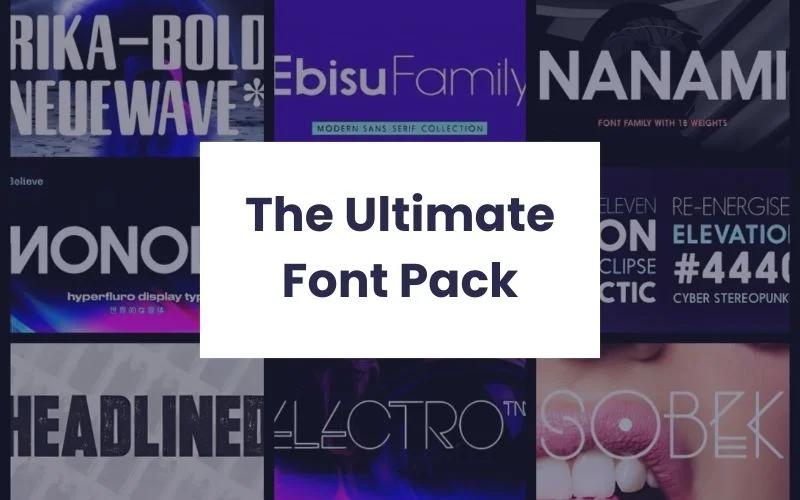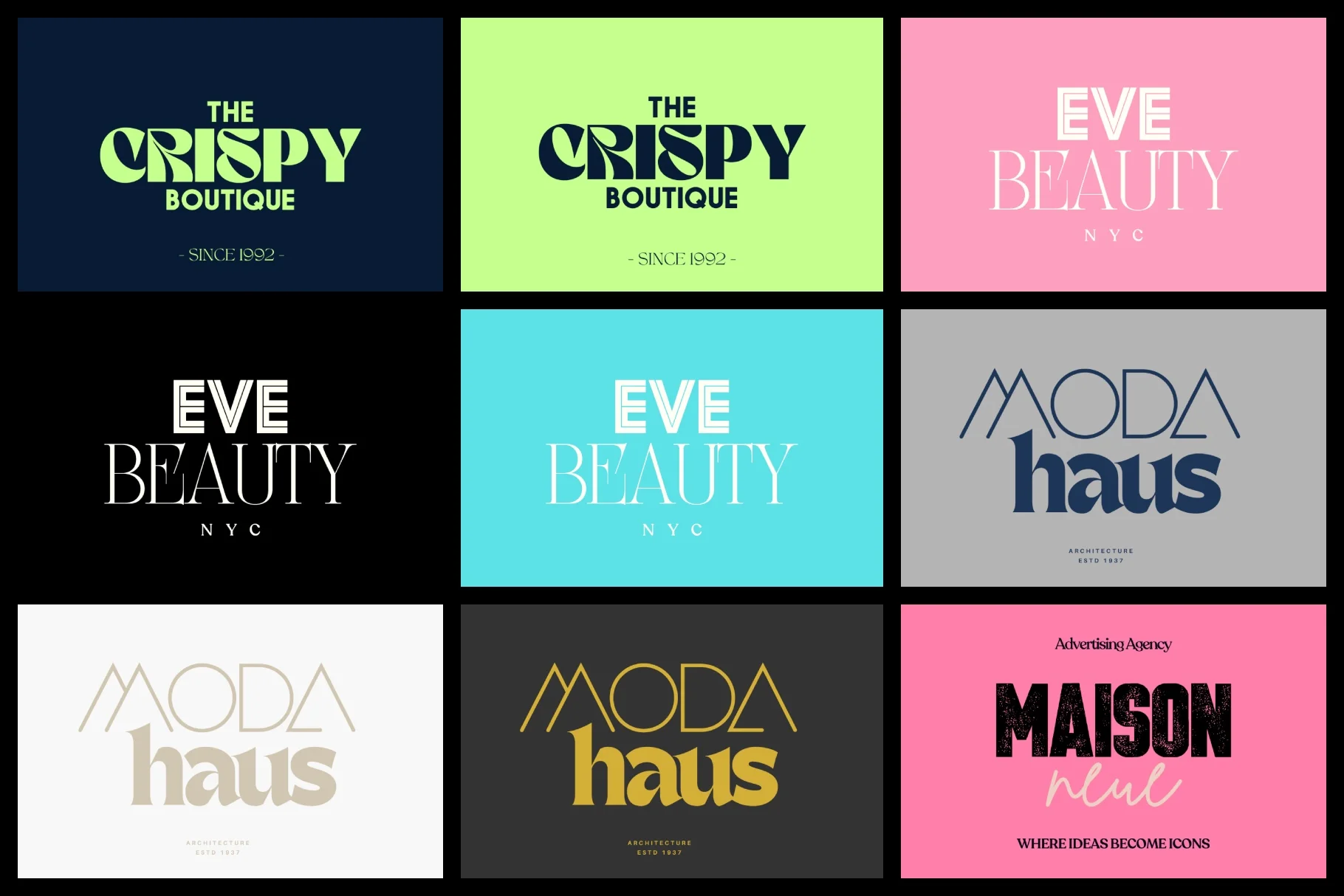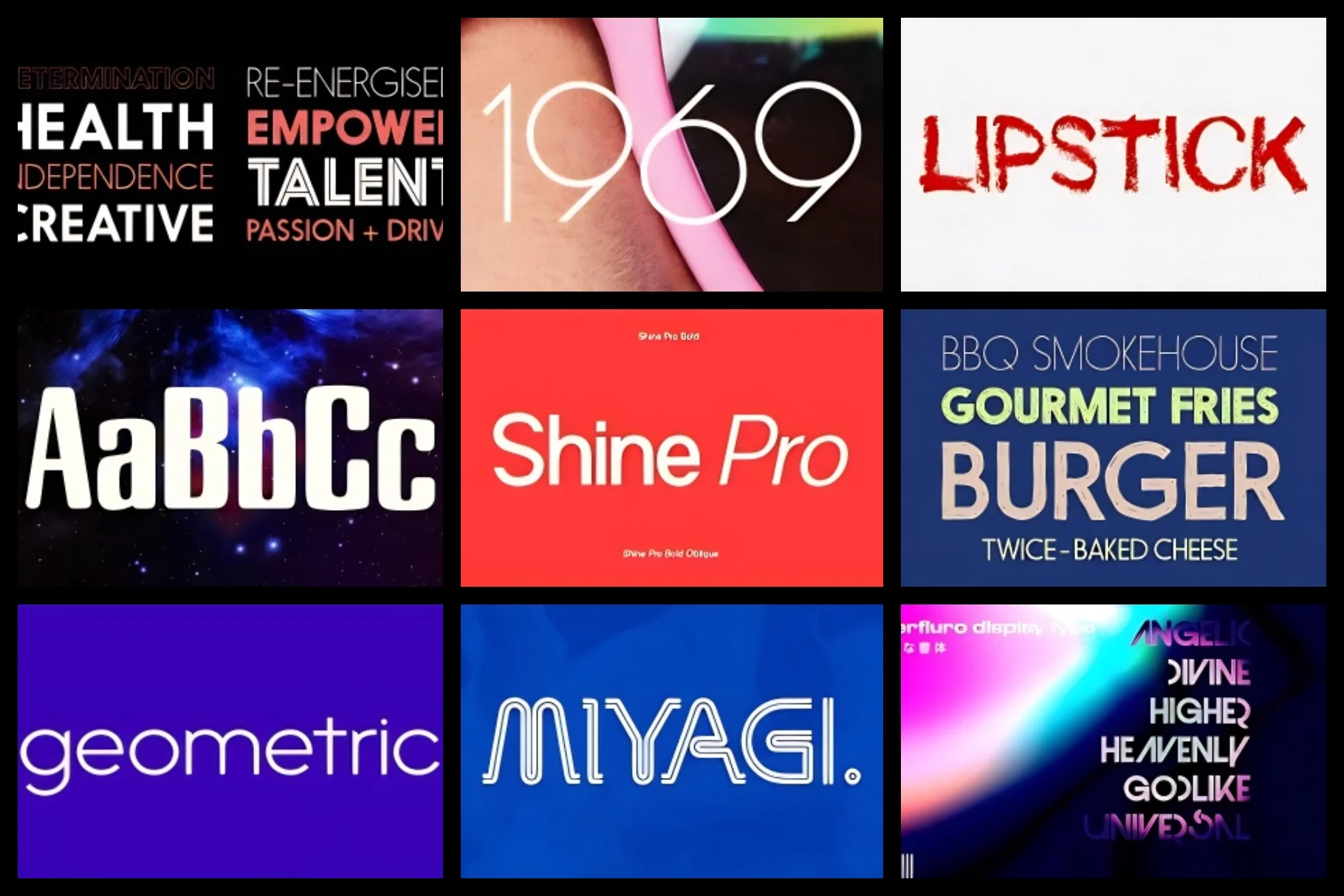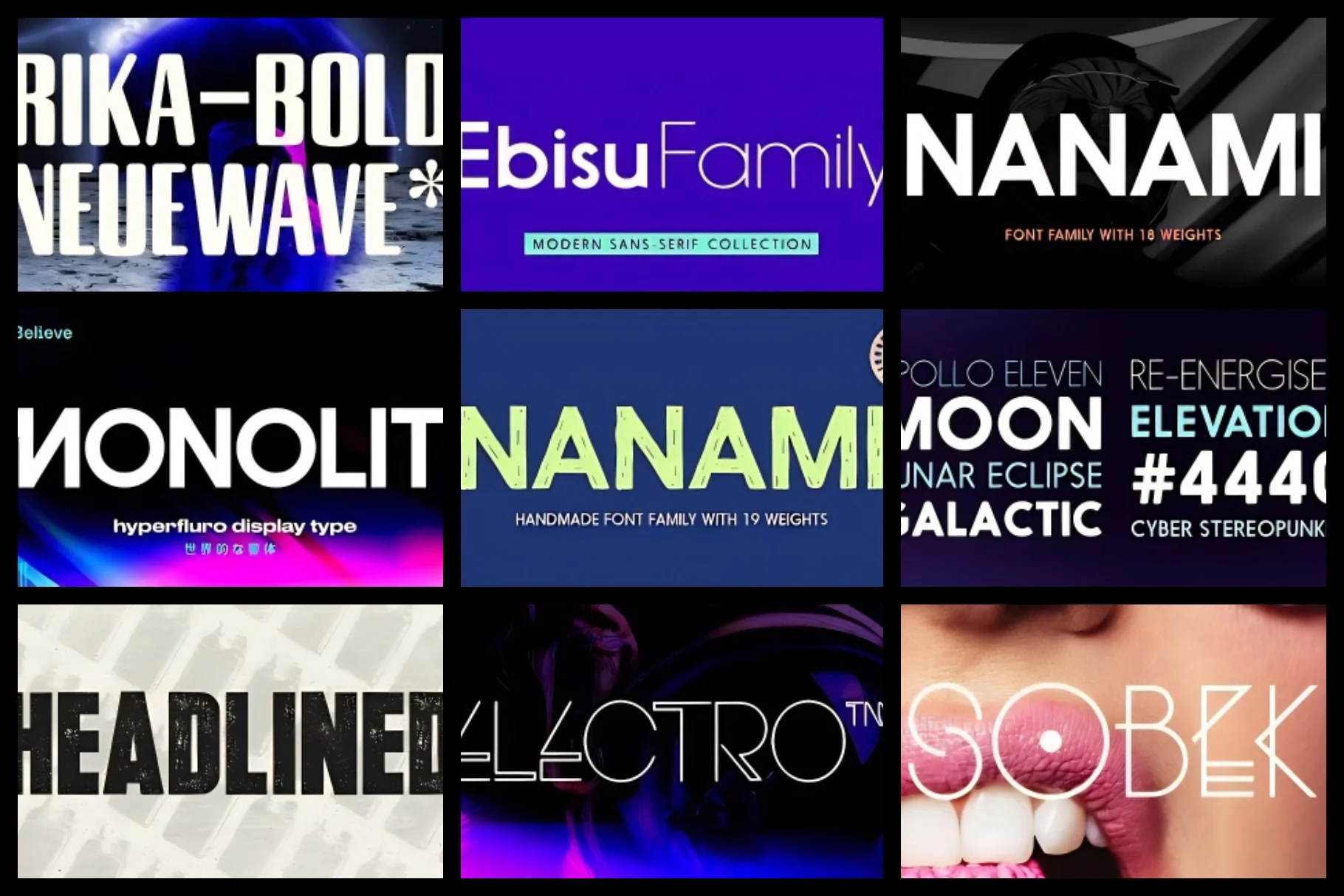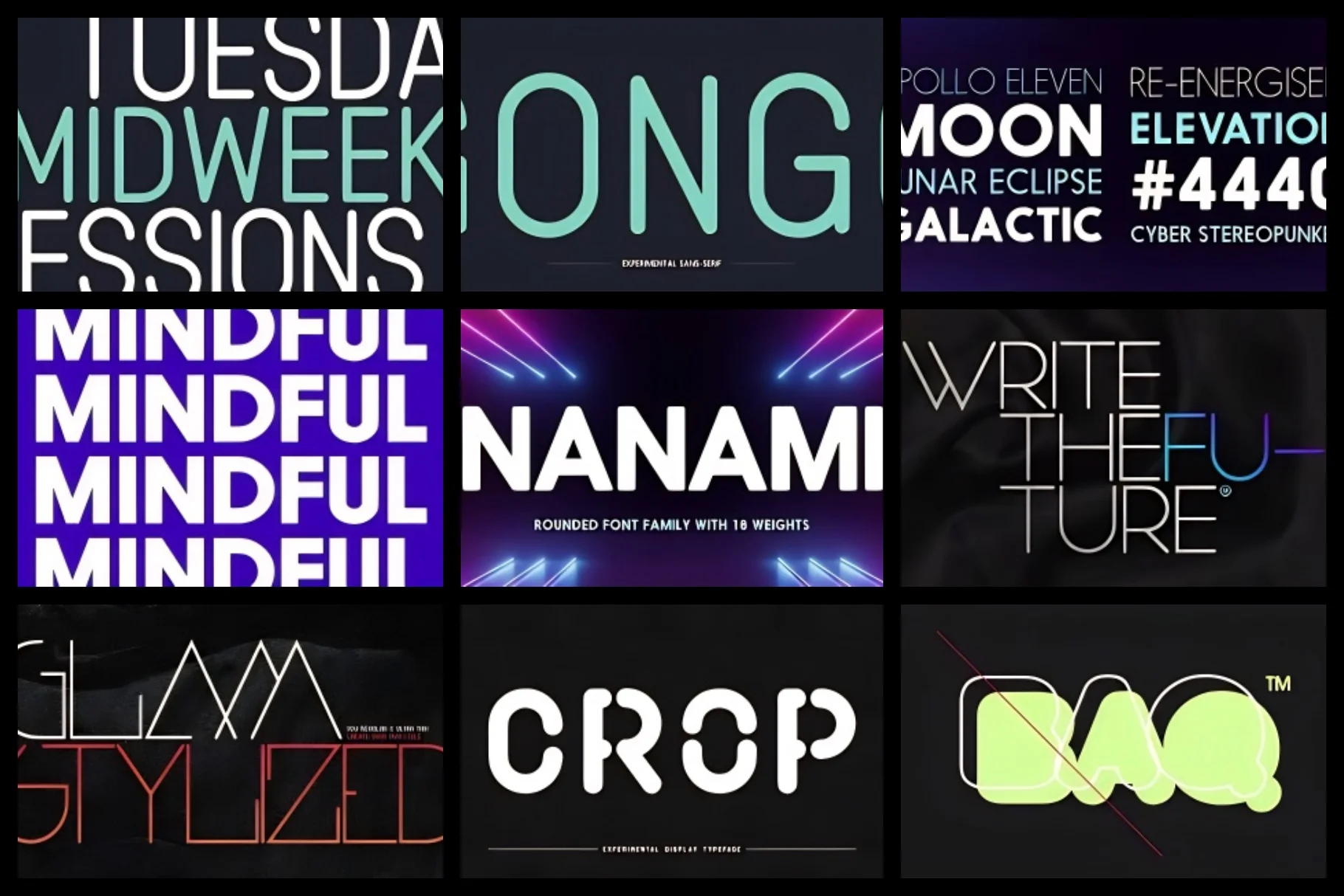
The Ultimate Font Pack
Each typeface is optimized for both screen and print, supporting languages like Latin-Extended, Cyrillic, and Latin-1.
This bundle is ideal for crafting modern, bold, and versatile branding assets.
- Nanami Rounded Pro Black
- Nanami Rounded Pro Bold
- Nanami Rounded Pro Extra Light
- Nanami Rounded Pro Heavy
- Nanami Rounded Pro Light
- Nanami Rounded Pro Medium
- Nanami Rounded Pro Normal
- Nanami Rounded Pro Thin
- Nanami Black
- Nanami BlackOblique
- Nanami Bold
- Nanami BoldOblique
- Nanami Book
- Nanami BookOblique
- Nanami ExtraLight
- Nanami ExtraLightOblique
- Nanami Heavy
- Nanami HeavyOblique
- Nanami HM Black
- Nanami HM Bld
- Nanami HM-Blk
- Nanami HM Bold
- Nanami HM Book
- Nanami HM ExLt
- Nanami HM ExtraLight
- Nanami HM Heavy
- Nanami HM Hvy
- Nanami HM Light
- Nanami HM Lt
- Nanami HM Med
- Nanami HM Medium
- Nanami HM Thin
- Nanamilnline
- Nanami Light
- Nanami LightOblique
- Nanami Medium
- Nanami MediumOblique
- NanamiOutline Oblique
- NanamiOutline Regular
- Nanami Thin
- Nanami ThinOblique
- Rika
- Roka
- Shine Pro Bold
- Shine Pro Regular
- Sobek
- SUKATO
- Vow Neue
- Yoko
- YorkHandwriting
- Yuko
- Font Styles: Sans-Serif, Text, Display, Grunge, Experimental, Headline
- Language Support: Hiruko Pro & Nanami: Latin-Extended + Cyrillic, Others: Latin-1